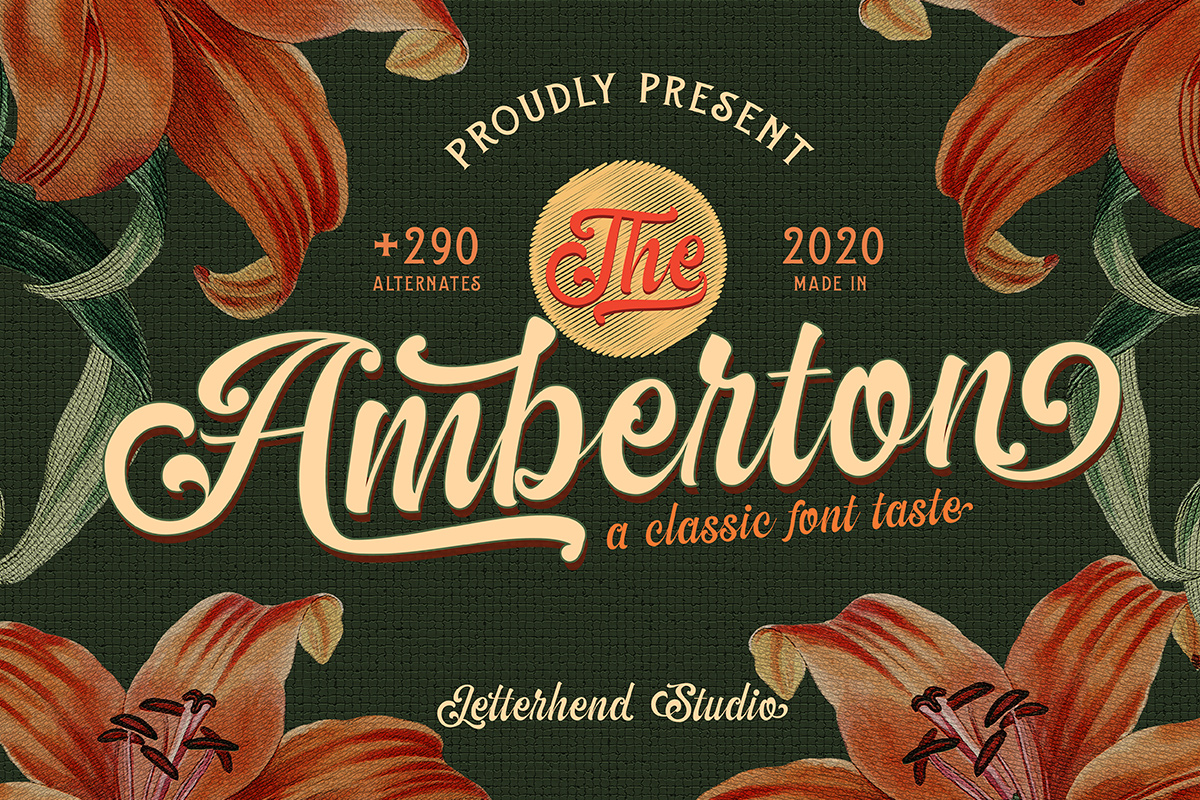
The Amberton Font
The Amberton Font is perfect for luxury hotel branding, upscale restaurant menus, premium real estate marketing, sophisticated corporate presentations, elegant law firm communications, high-end financial services materials, distinguished academic institutions, prestigious award ceremonies, exclusive membership clubs, and refined professional service providers. This distinguished typeface brings timeless sophistication to luxury automotive dealerships, premium jewelry stores, upscale art galleries, exclusive private schools, and prestigious cultural institutions.
The Amberton Font is exciting because it embodies aristocratic elegance and institutional prestige through its impeccably crafted letterforms that exude authority and refined sophistication. The font features characters with classical proportions and distinguished details that evoke the grandeur of established institutions, the elegance of luxury brands, and the timeless appeal of traditional craftsmanship. Its distinctive construction demonstrates institutional excellence with carefully balanced elements that create an immediate sense of prestige and sophisticated authority. The font's aristocratic presence and prestigious authenticity make it perfect for organizations seeking to communicate exclusivity, institutional excellence, and distinguished professional standing in their visual communications.
The Amberton Font family includes various prestigious styles: Thin, Light, Regular, Medium, Bold, Black, Italic, Condensed, Extended, Display, Classic, and Distinguished variants. Each family member maintains the core prestigious DNA while offering different levels of sophistication for diverse luxury design applications. The comprehensive font collection ensures consistent elite branding across high-end marketing campaigns, prestigious institutional materials, and sophisticated communication systems.
The Amberton Font Free Download provides designers with an exceptional tool for creating memorable and prestigiously elegant visual communications. This remarkable typeface seamlessly blends aristocratic heritage with contemporary functionality, making it ideal for both digital luxury platforms and premium institutional print materials. The font's carefully crafted prestigious details and sophisticated proportions create captivating visual experiences that resonate with audiences seeking exclusivity, institutional credibility, and distinguished professional excellence.
Whether you're creating luxury brand identities, designing prestigious marketing materials, developing sophisticated website headers, or crafting exclusive promotional campaigns, The Amberton Font delivers outstanding aristocratic appeal and institutional authenticity. The font's distinctive prestigious personality excels in luxury logos, high-end packaging design, institutional applications, and exclusive projects where aristocratic elegance and distinguished prestige are essential.